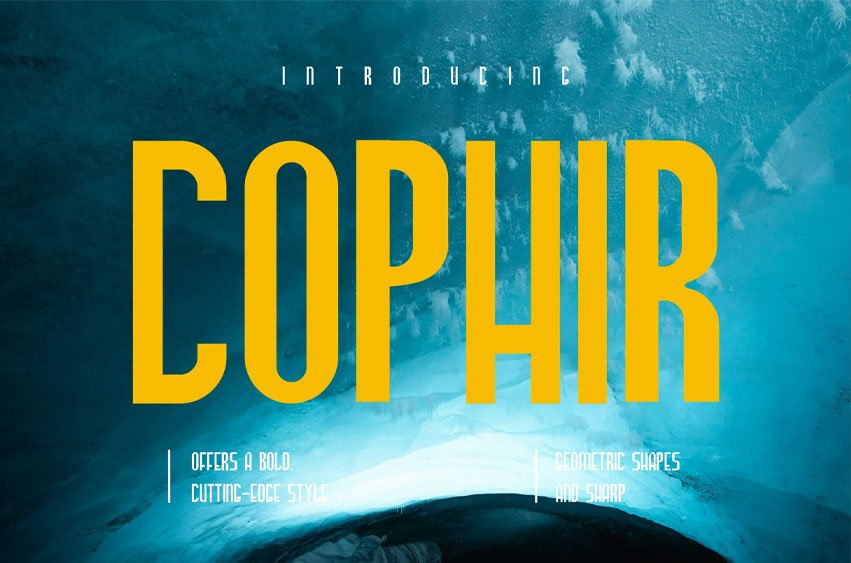
Cophir Font is a futuristic font that pushes the boundaries of design with its sleek, geometric shapes and sharp, innovative lines. Inspired by the aesthetics of science fiction and technology, Cophir offers a bold, cutting-edge style perfect for projects that demand a forward-thinking and modern look.
Its clean, angular form makes it an excellent choice for tech branding, digital interfaces, and any creative endeavor that aims to convey a sense of innovation and progress.